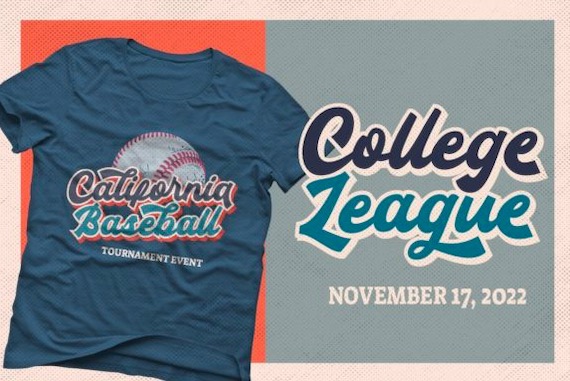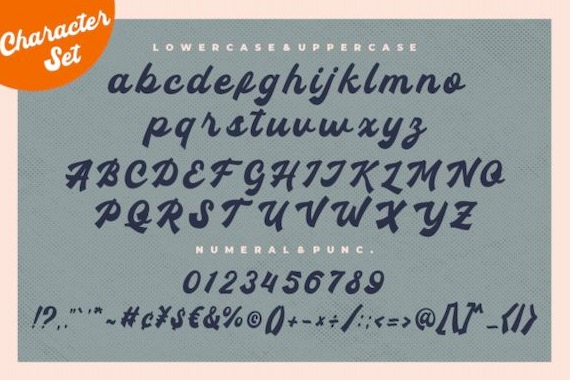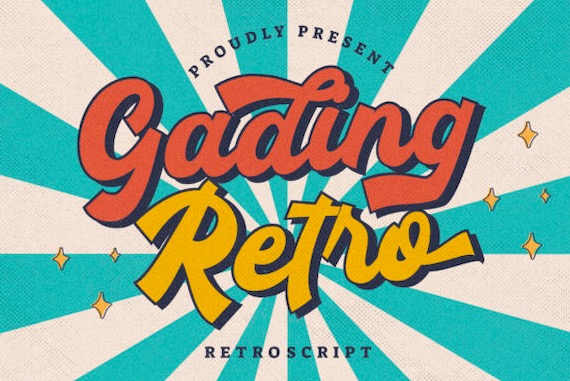
Gading Retro Font
Gading Retro is a strong handwritten script font that was created and shared by Creatype Studio along with a vintage & classic style that is very perfect for your latest designs.
Gading Retro looks stunning when is used in many designs such as branding projects, logos, wedding designs, social media posts, advertisements, product packaging, product designs, label, photography, watermark, invitation, stationery, and any projects that need handwriting taste.
• Ton of glyphs
• Ligature & Alternate